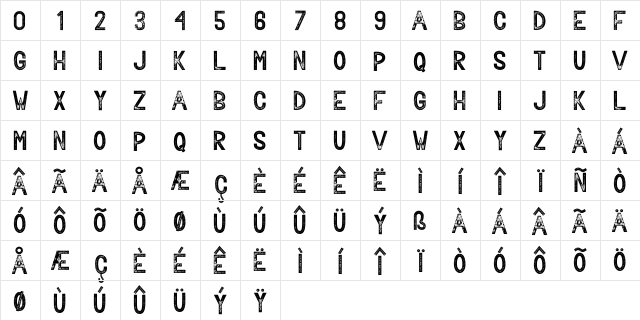
Bavalor Regular
Design Context for Bavalor Typeface
Bavalor offers clean, dependable letterforms without strong stylistic allegiance, making it a practical choice for designers who need flexibility.